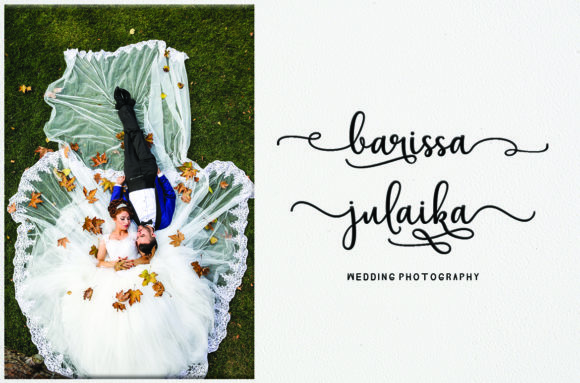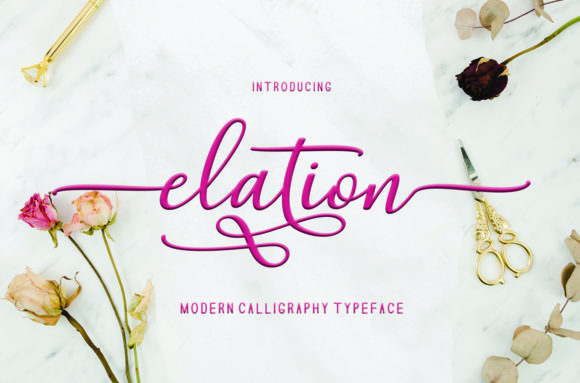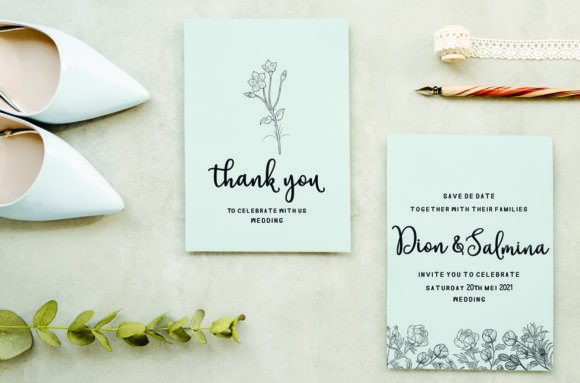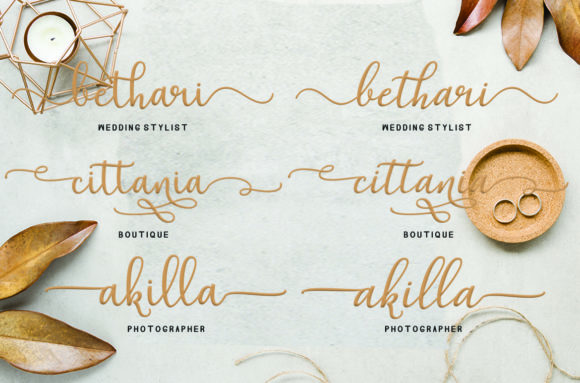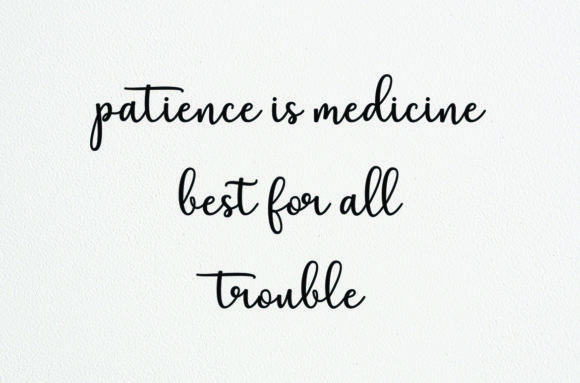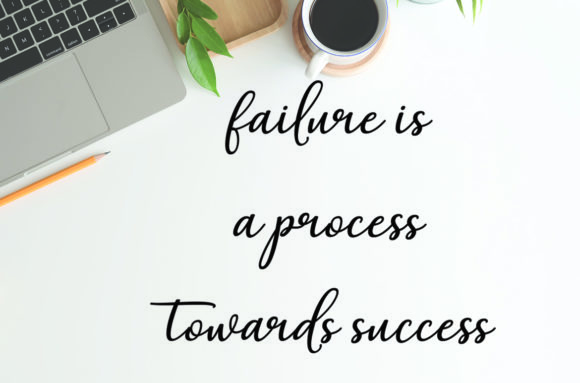
Introducing Elation Font: Elevate Your Designs with this Versatile Duo
Are you tired of using the same old fonts in your designs? Look no further than Elation Font, a stunning duo font that combines the clean lines of a sans serif font with the personal touch of a handwritten font. This versatile font pair is perfect for designers and crafters looking to add a touch of elegance and sophistication to their work.
The Perfect Pair: Sans Serif and Handwritten Fonts
Elation Font is a carefully crafted duo font that brings together two distinct styles: a crisp, modern sans serif font and a flowing, handwritten font. The sans serif font is perfect for headlines, titles, and other display text, while the handwritten font adds a touch of warmth and personality to body text, captions, and other smaller text elements.
The beauty of Elation Font lies in its ability to work seamlessly together, creating a cohesive look that’s perfect for a wide range of design applications. Whether you’re working on a logo, brochure, website, or social media graphics, this font pair is sure to elevate your designs to the highest levels.
One of the things that sets Elation Font apart is its incredible versatility. This font pair can be used in a wide range of design applications, from:
- Logos and branding materials: Create a lasting impression with a custom logo that showcases your brand’s personality and style.
- Print materials: Use Elation Font to create stunning brochures, flyers, posters, and business cards that showcase your products or services.
- Digital designs: Add a touch of elegance to your website, social media graphics, and email marketing campaigns.
- Crafting and DIY projects: Use Elation Font to create beautiful handmade cards, gift tags, and other paper crafts.
Why Choose Elation Font?
So why choose Elation Font over other font pairs? Here are just a few reasons:
- Unique and eye-catching: Elation Font is a one-of-a-kind duo font that’s sure to grab attention and set your designs apart.
- Highly versatile: This font pair can be used in a wide range of design applications, making it a great addition to any designer’s toolkit.
- Easy to read: The sans serif font is clean and easy to read, while the handwritten font adds a touch of personality and warmth.
- Perfect for pairing: Elation Font is designed to work seamlessly with other fonts, making it easy to mix and match with your favorite fonts.
| Font Name | Elation Font |
| Author | Fontensy |
Elation Font is a game-changing duo font that’s perfect for designers and crafters looking to add a touch of elegance and sophistication to their work. With its unique and eye-catching design, high versatility, and ease of use, this font pair is sure to become a favorite in your design toolkit. So why wait? Download Elation Font today and start elevating your designs to the highest levels!